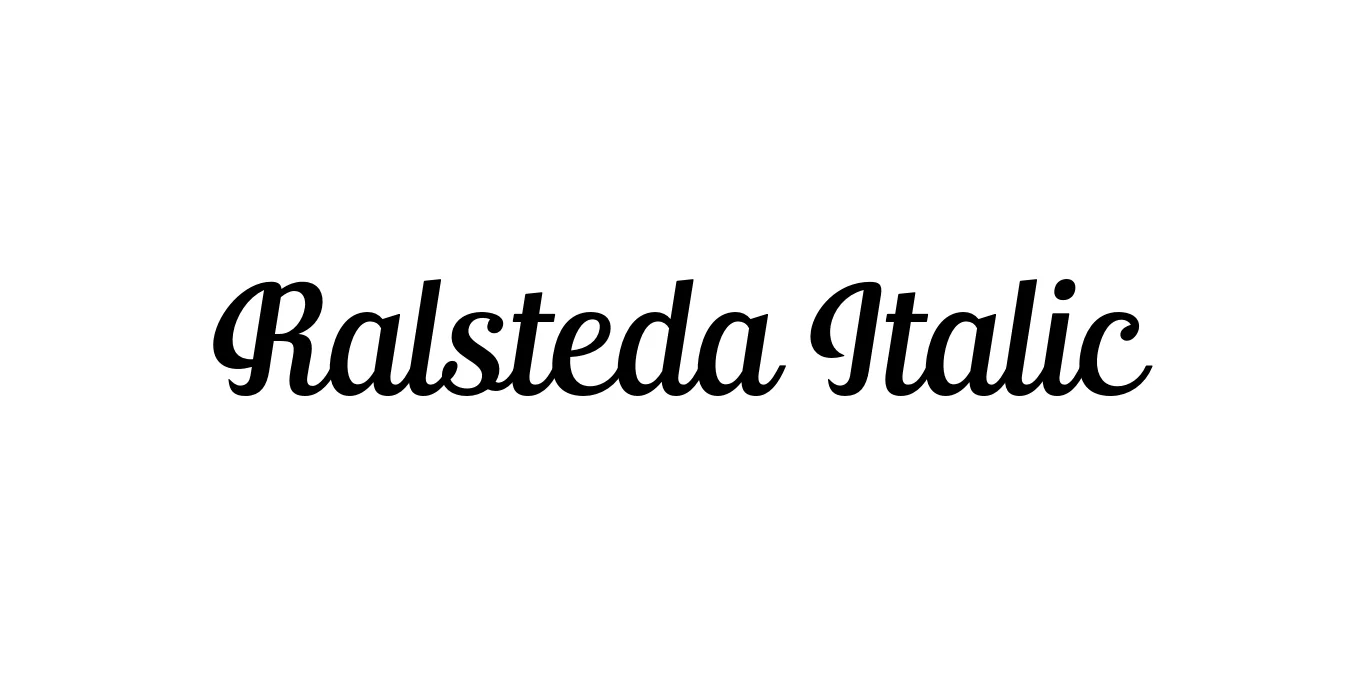
Ralsteda Italic
Designed by Creatype Studio
Ralsteda Italic is a sophisticated typeface designed to bridge the gap between classic editorial elegance and contemporary digital aesthetics. Its flowing, rhythmic strokes and distinct sharp terminals offer a high-contrast profile that captures the eye immediately. Developed as a companion to the upright Ralsteda family, the italic version introduces a dynamic sense of motion, making it ideal for high-end fashion branding and luxury storytelling.
The design process for Ralsteda Italic focused heavily on legibility within decorative contexts. By refining the slant angle and optimizing the kerning pairs, the designer ensured that the font maintains its poise even at smaller display sizes. Today, it stands as a popular choice for designers seeking a balance between a handcrafted feel and a polished, professional finish in both print and digital media.
Ralsteda Italic Best Uses
Ideal for magazine headings and pull quotes.
Perfect for luxury logo designs and high-end visual identities.
High-impact hero sections on fashion or lifestyle blogs.
Elegant choice for wedding stationery and formal event invites.